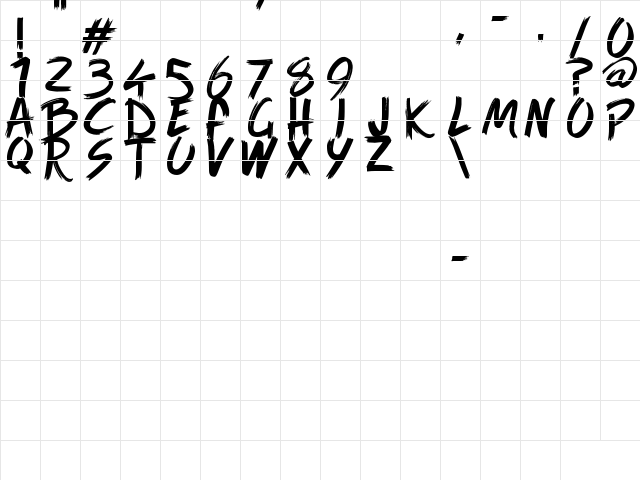
Game of Brush Regular
Design Context for Game of Brush Typeface
Game of Brush brings a calligraphic fluidity to the page — its connecting strokes and expressive curves give it an unmistakably human quality.